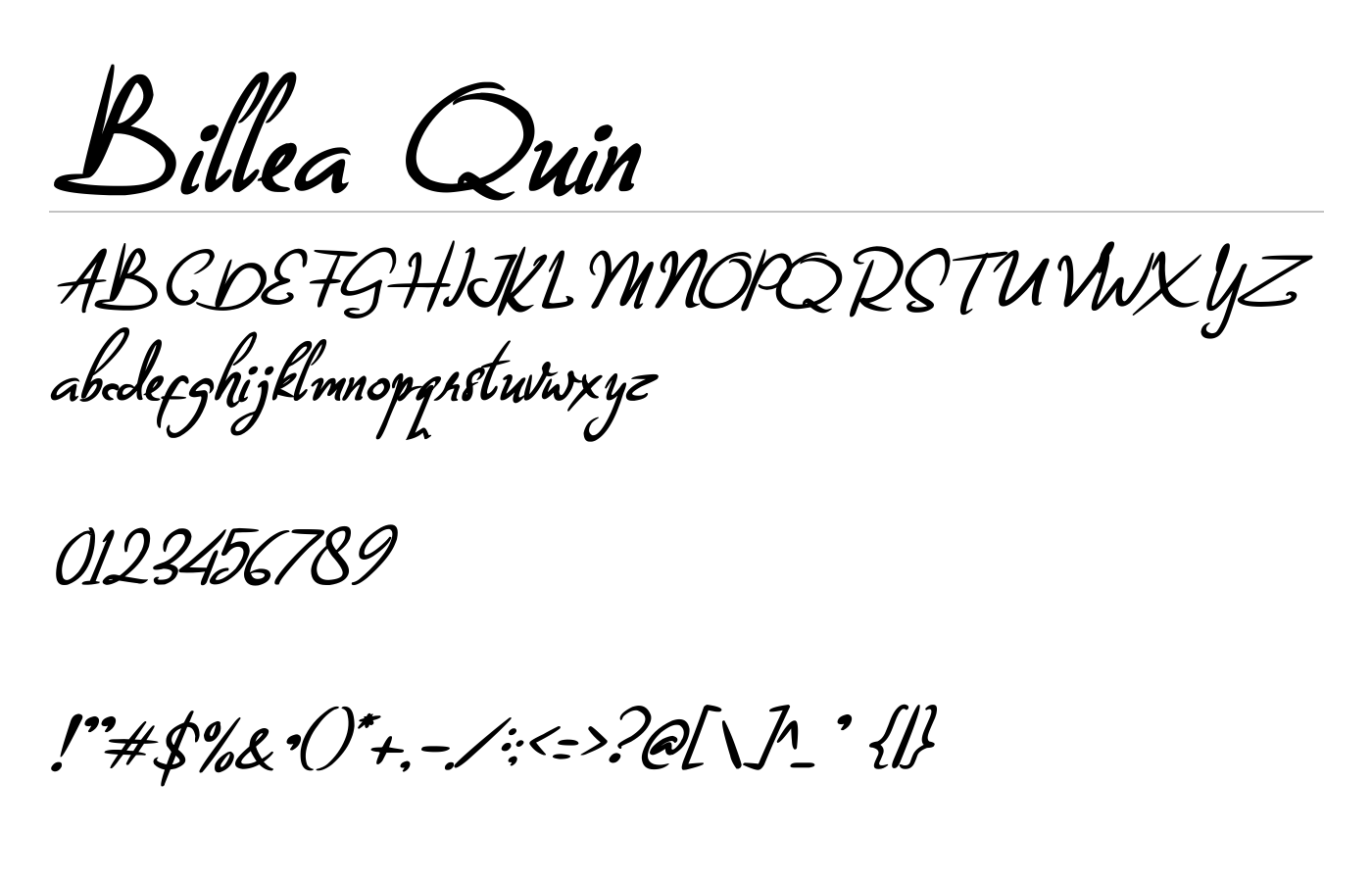
Billea Quin is a stylish, cursive script font with a lively and elegant flow, characterized by its medium weight and fluid, hand-drawn strokes. It features a slightly condensed width and a moderate x-height, with distinctive single-story forms for letters like 'a' and 'g', and playful, swirling terminals that give it a sophisticated yet approachable personality. This font works beautifully for branding, invitations, and editorial headlines where a personal, artistic touch is needed to convey charm and creativity.
Billea Quin Font
About Billea Quin Font
| Font family | Billea Quin Font |
| Designer | Subectype 2019 |